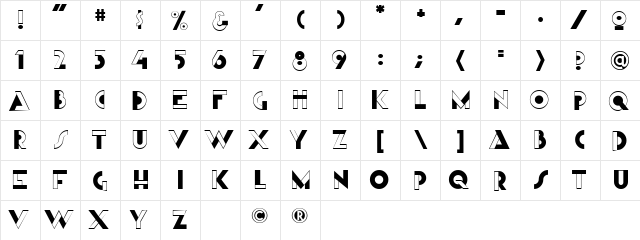
CCDutchCourage1 BlackAndTan
Design Context for CCDutchCourage1 Typeface
CCDutchCourage1 is a composed and adaptable typeface that performs quietly and consistently across a wide range of design contexts.